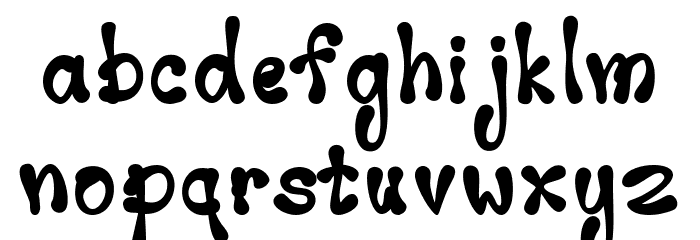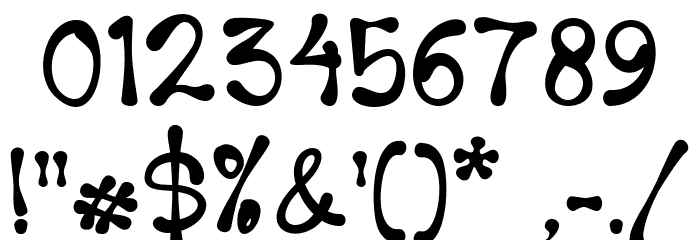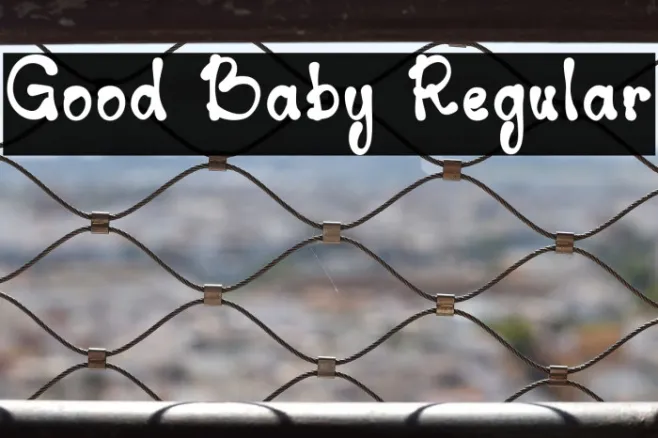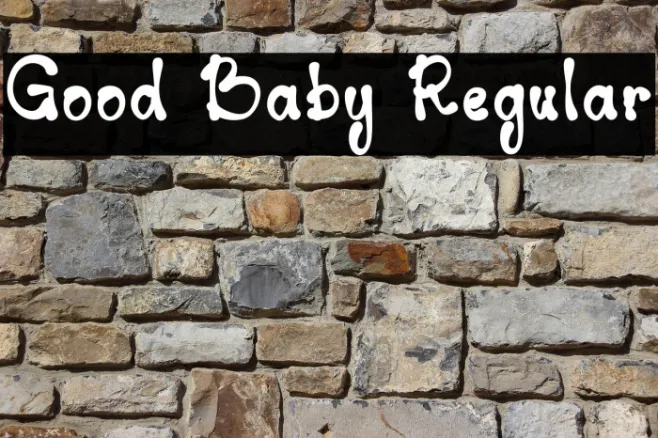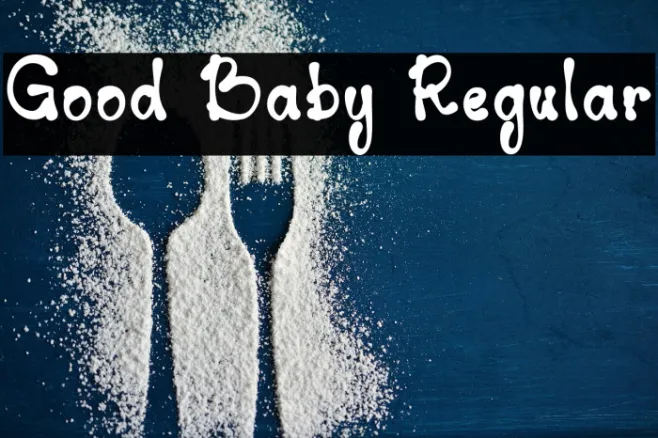
Good Baby Regular Font
This playful and whimsical font features rounded, bubbly characters that exude a sense of fun and creativity. The letters are bold and have a hand-drawn appearance, with a slight irregularity that adds to their charm. The uppercase and lowercase letters maintain a consistent style, with the uppercase being slightly larger and more pronounced. Numbers and special characters are equally playful, making this font versatile for a variety of uses. The overall look is friendly and approachable, perfect for projects that aim to convey warmth and lightheartedness.
A playful, hand-drawn font with rounded, bubbly characters.
- Proposed Projects: Ideal for children's books, playful branding, party invitations, and creative posters.
- Overall Style: Playful